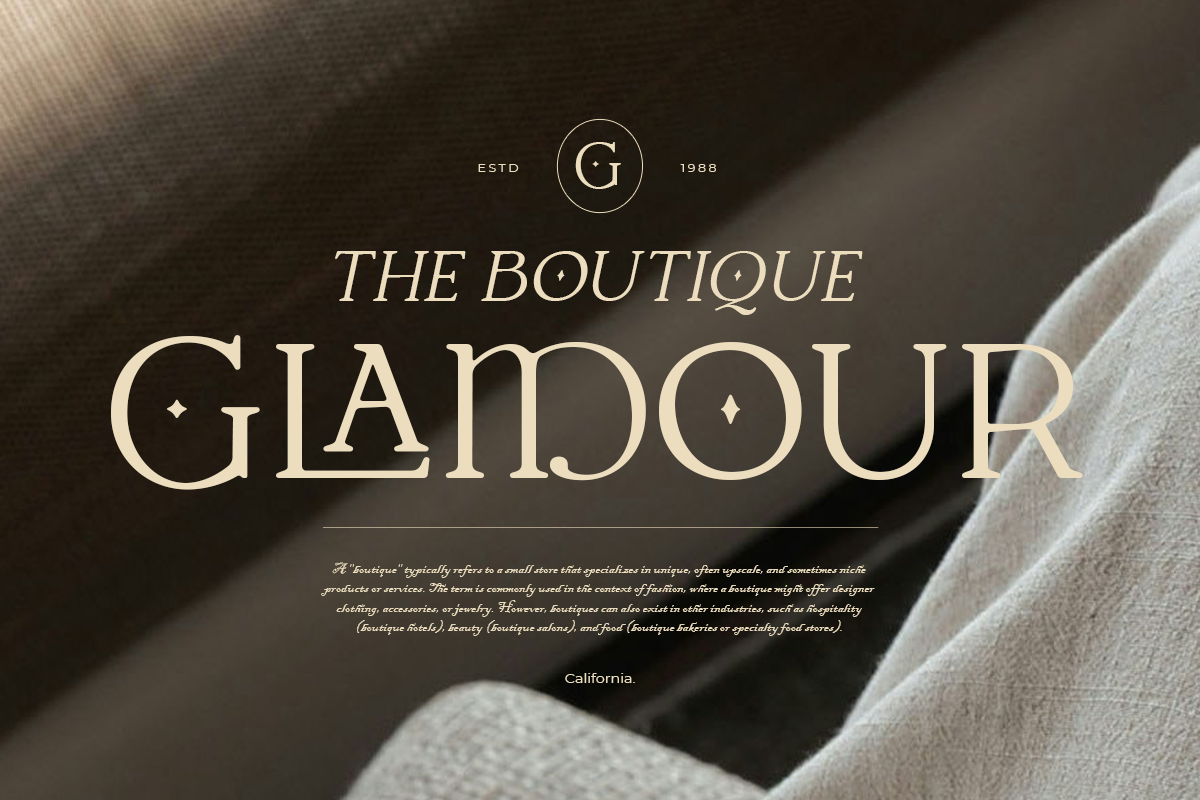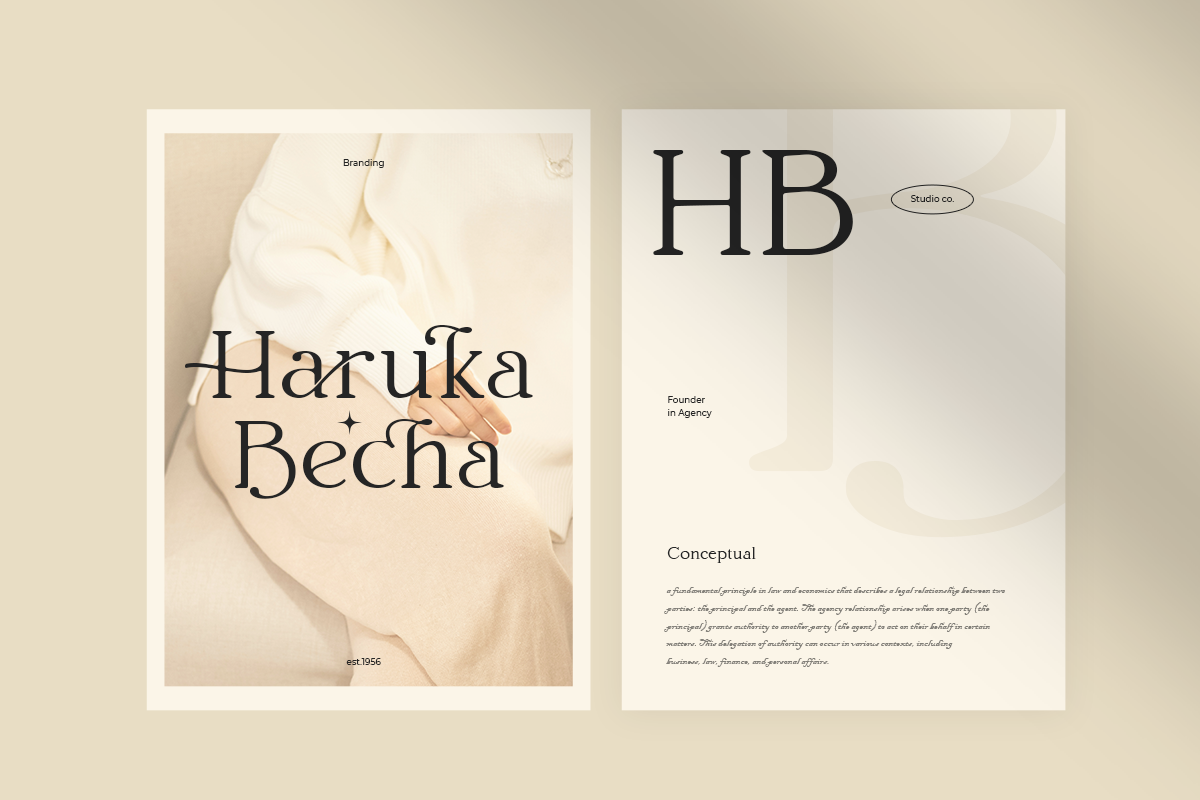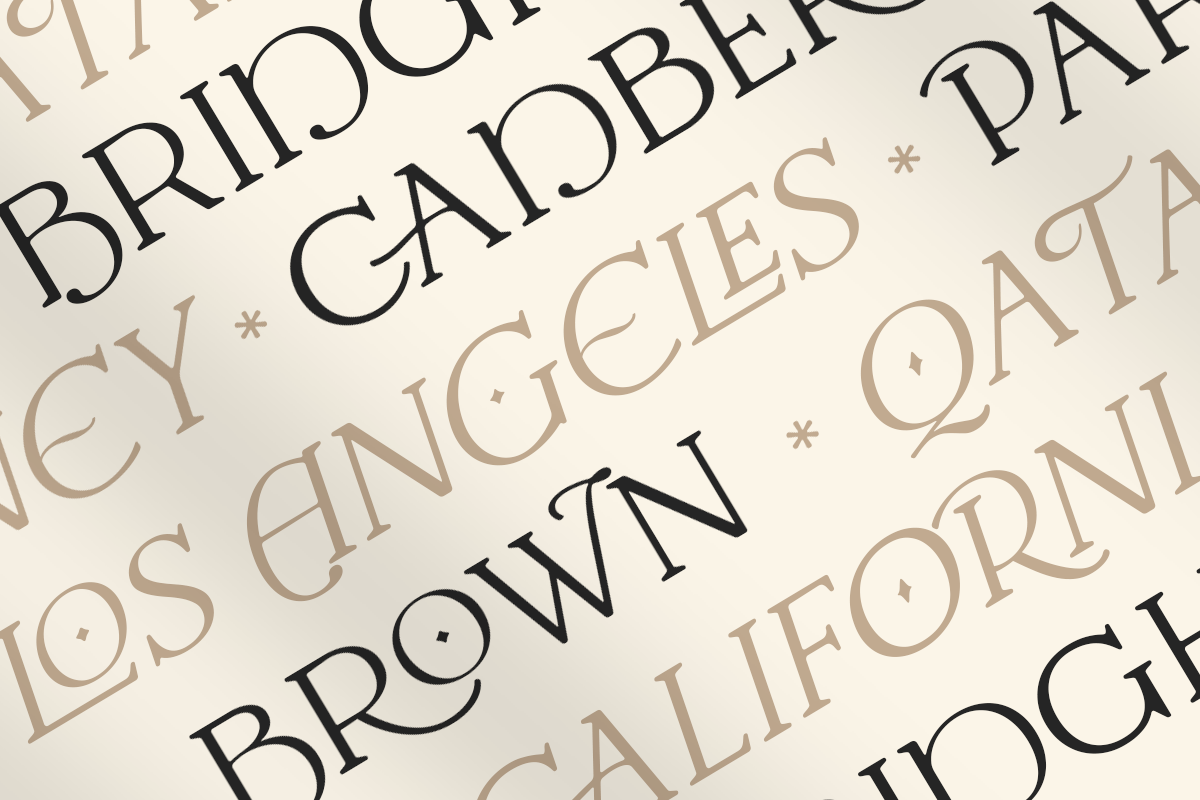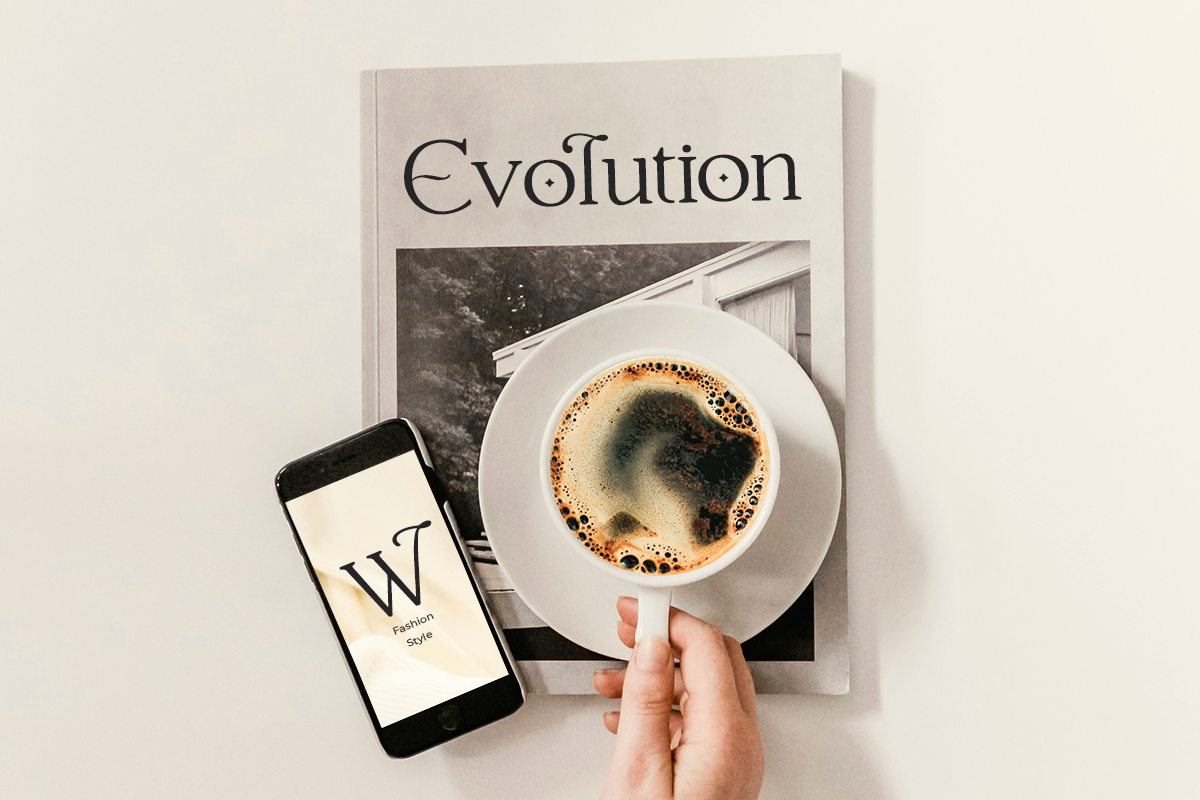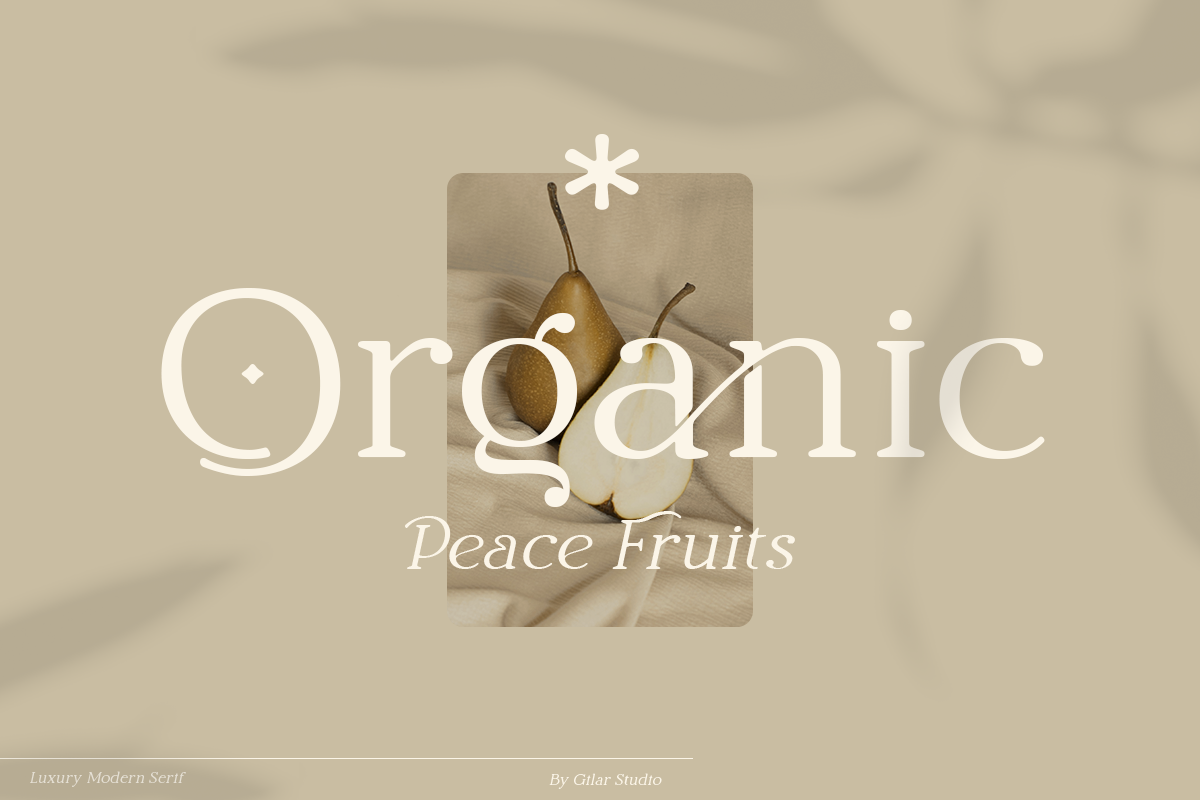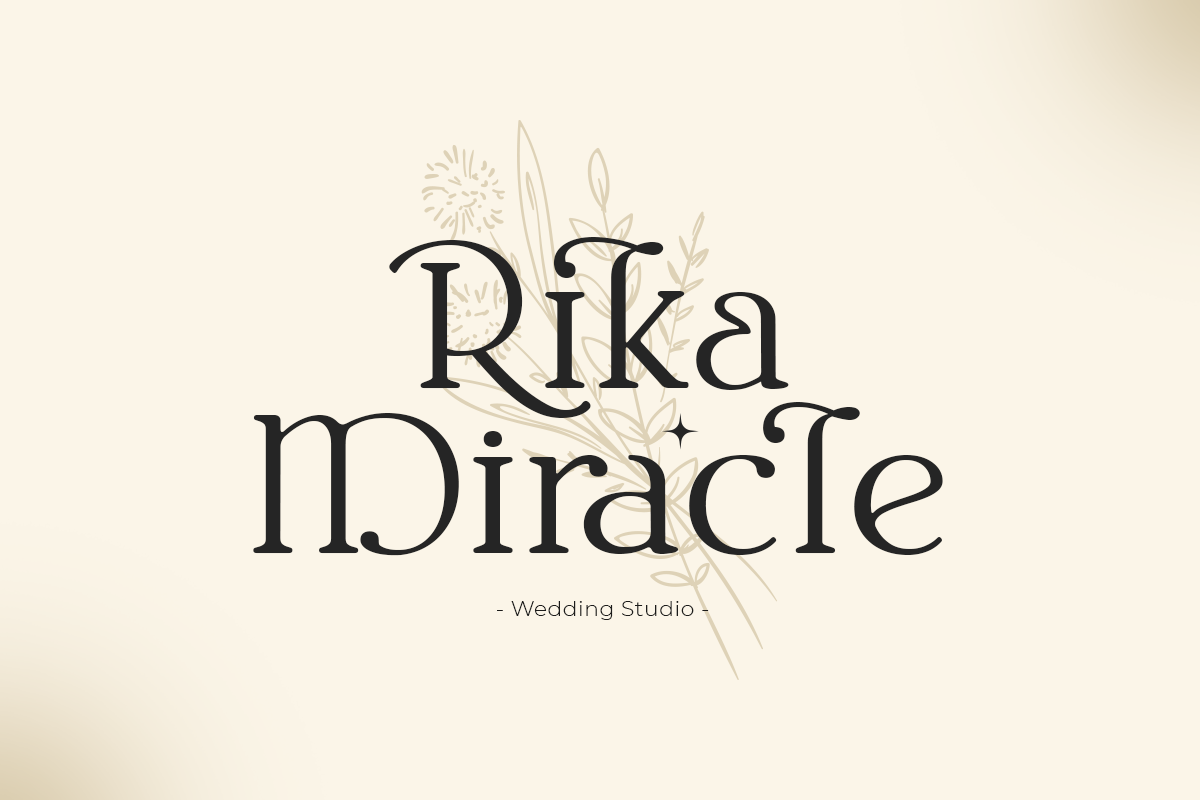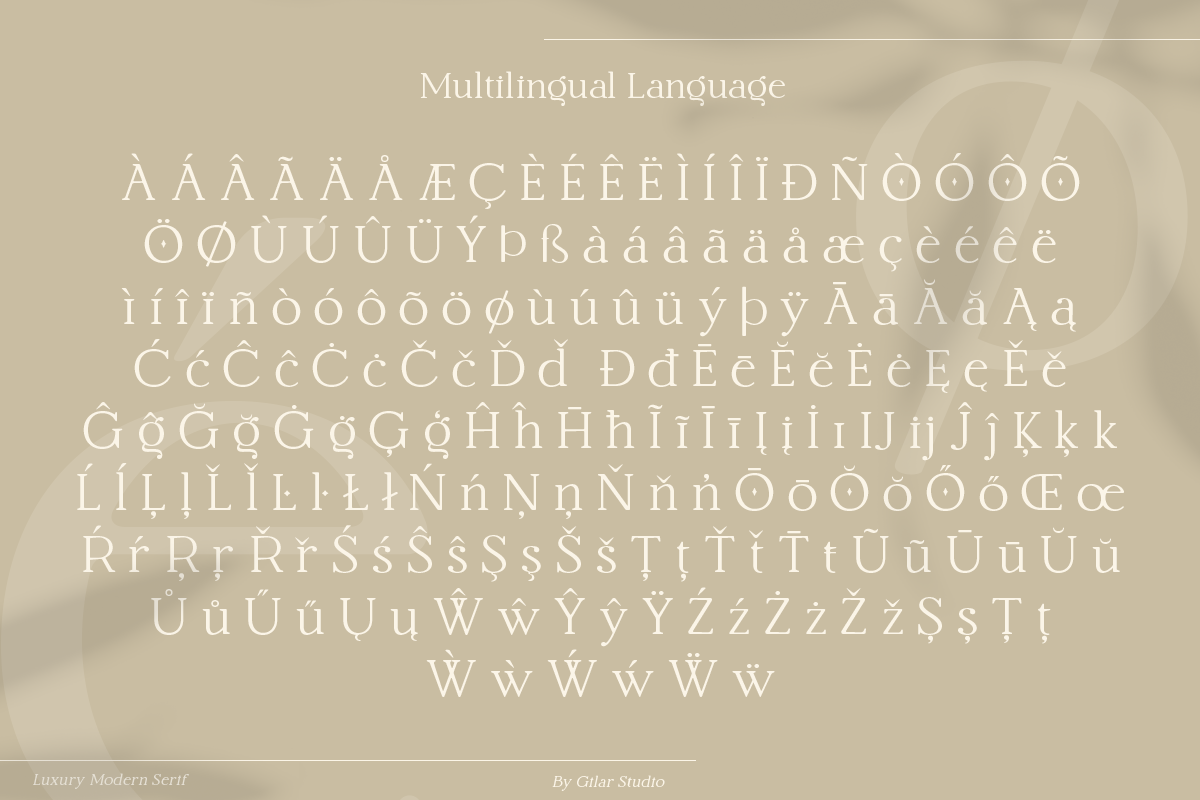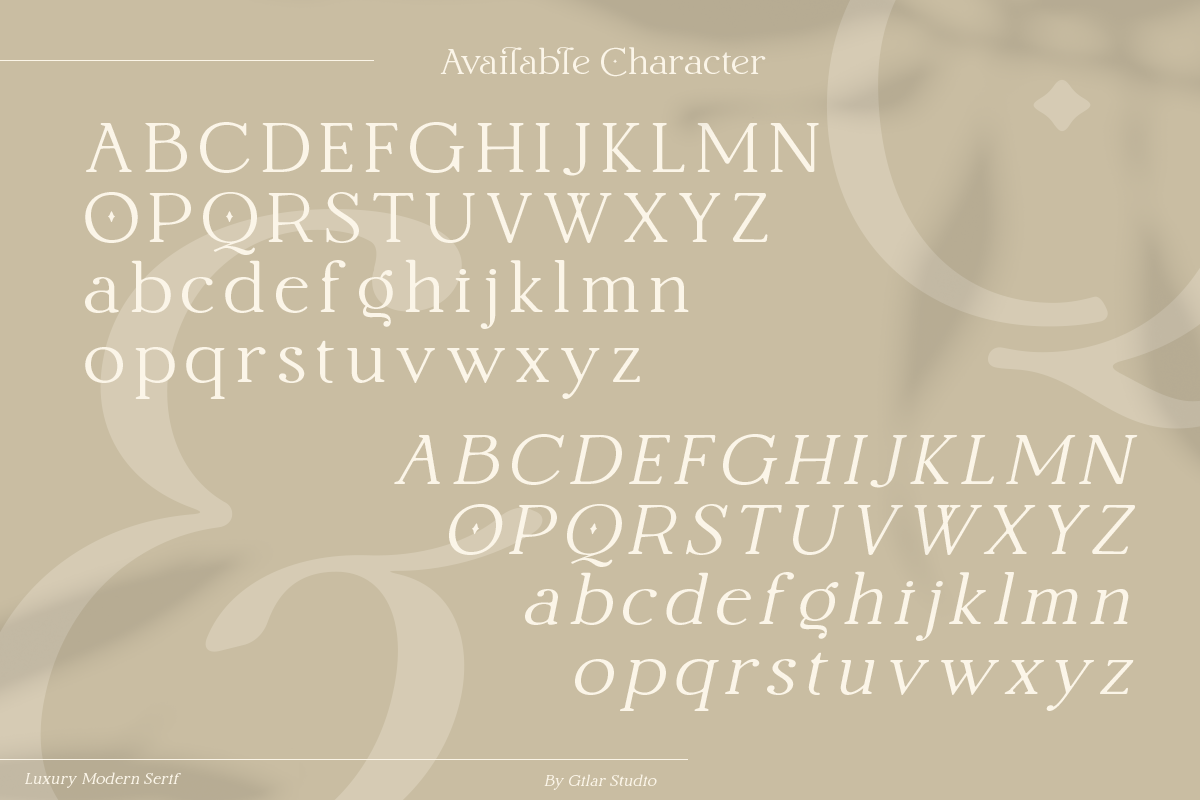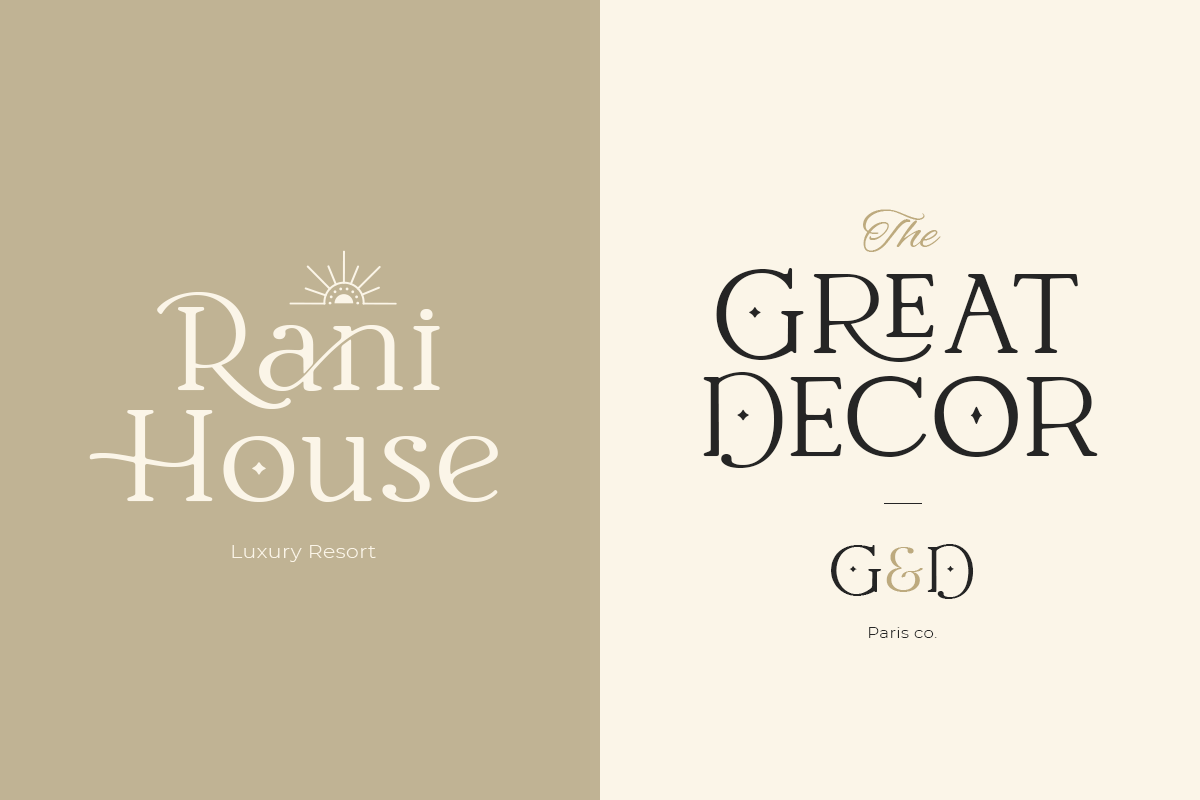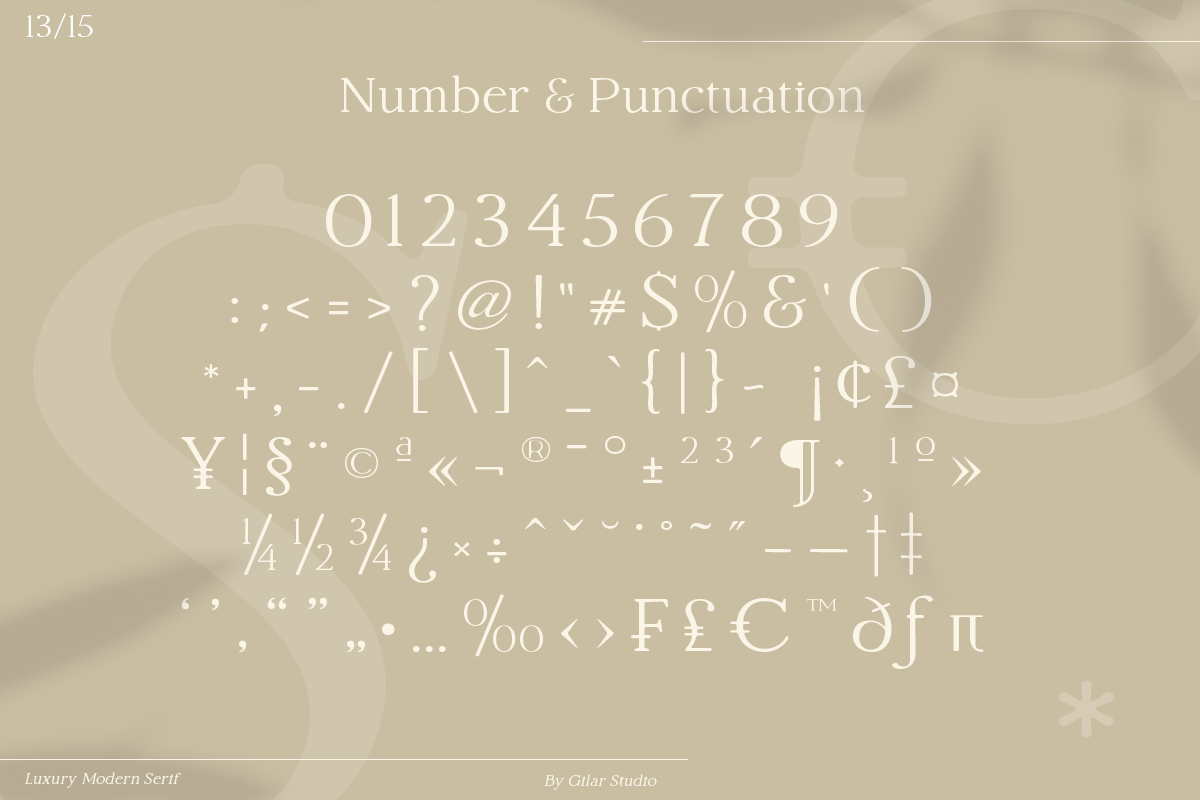
Grotek - Luxury Modern Serif
introducing **Grotek - Luxury Modern Serif **
**Grotek ** with 2 style Regular And Oblique. will work perfectly for fashion, e-commerce brands, trend blogs, wedding boutiques or any business . suitable for short or long text.
**Grotek ** also Suitable for Logo, greeting cards, quotes, posters, branding, name card, stationary, design title, blog header, art quote, typography, art, modern envelope lettering or book design, craft design, any DIY project, book title, or any purpose to make your art/design project look pretty and trendy.
Numerals & Punctuations
Accents/Multilingual characters
Beautyful Ligature